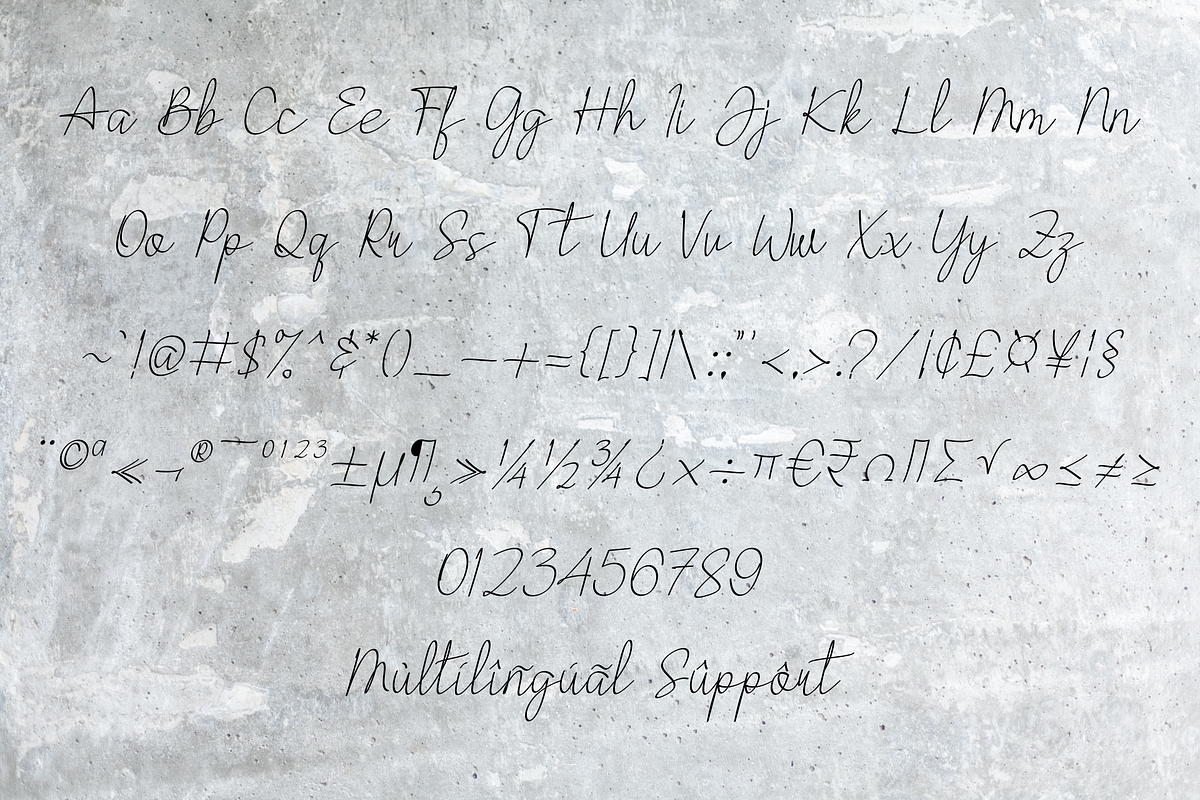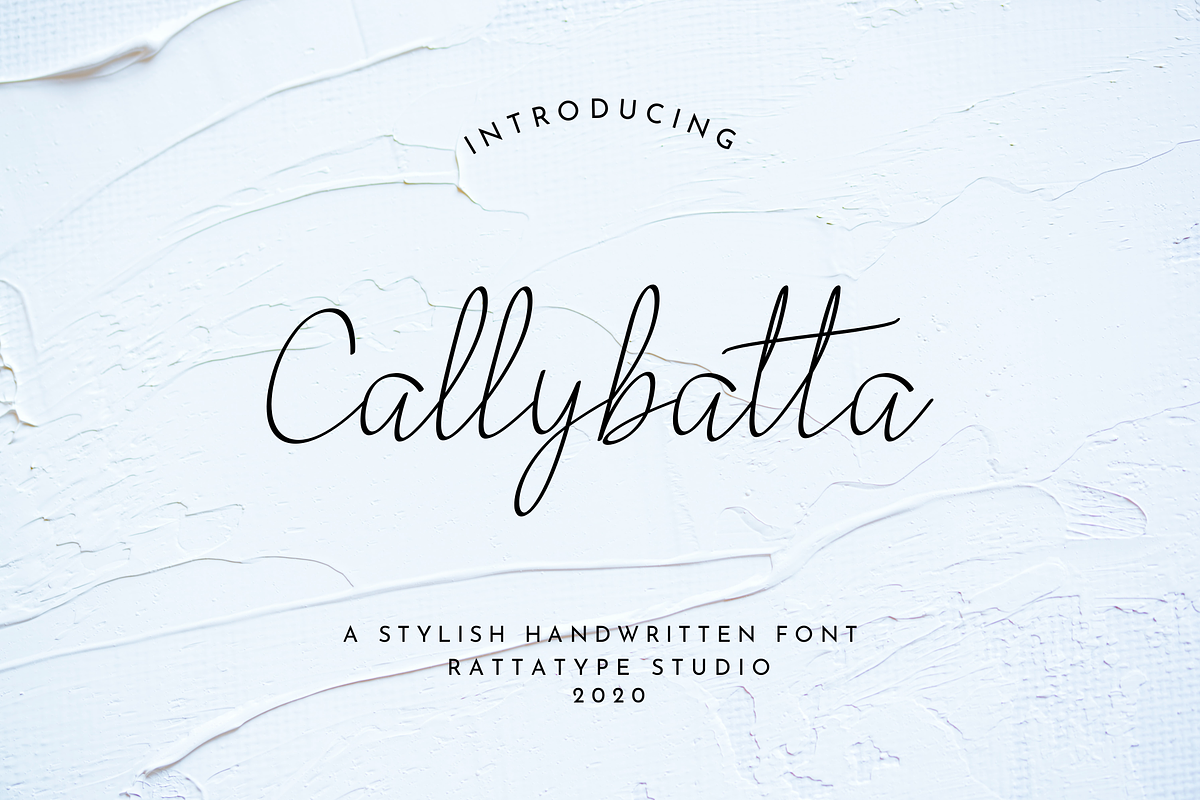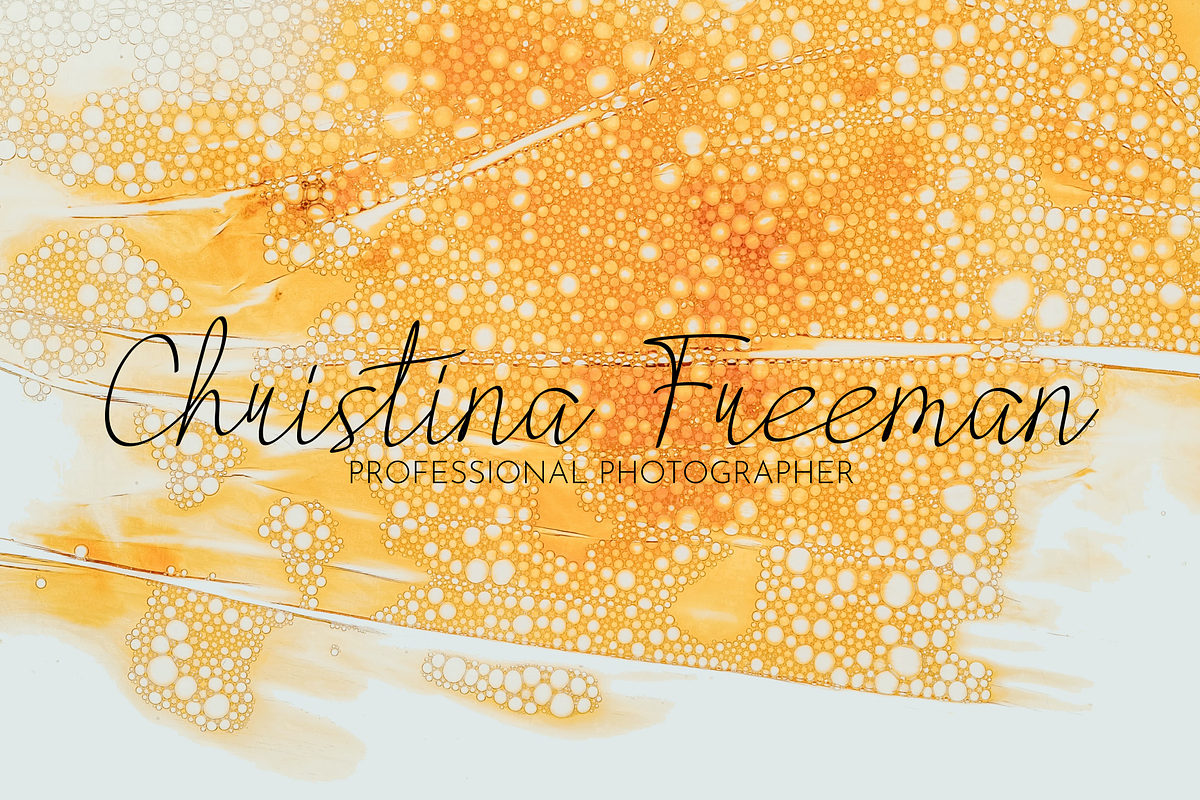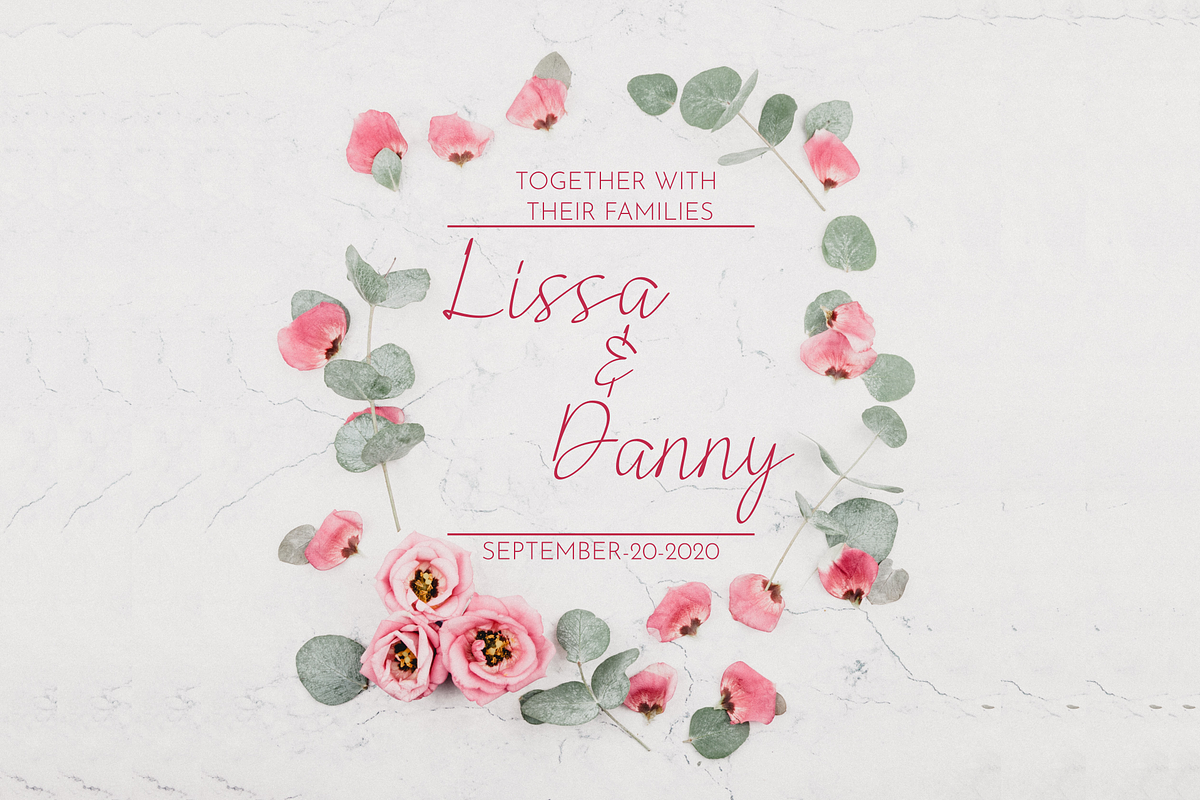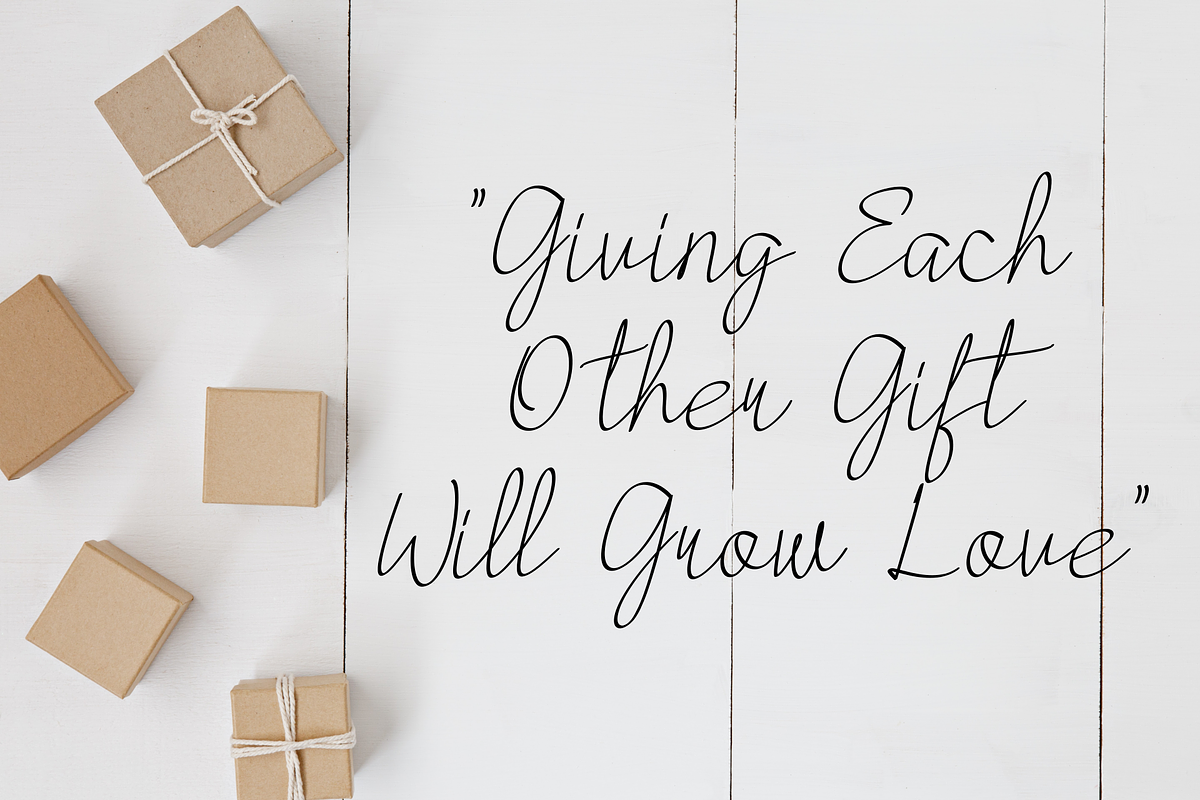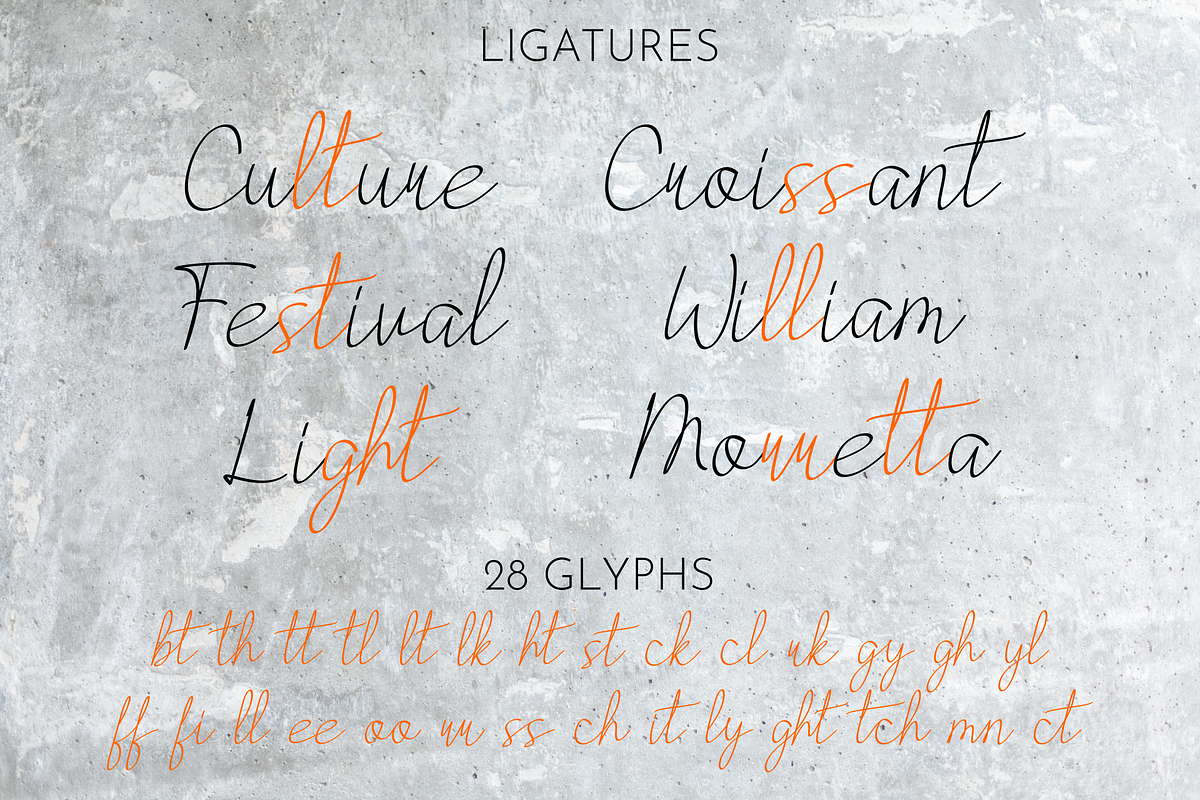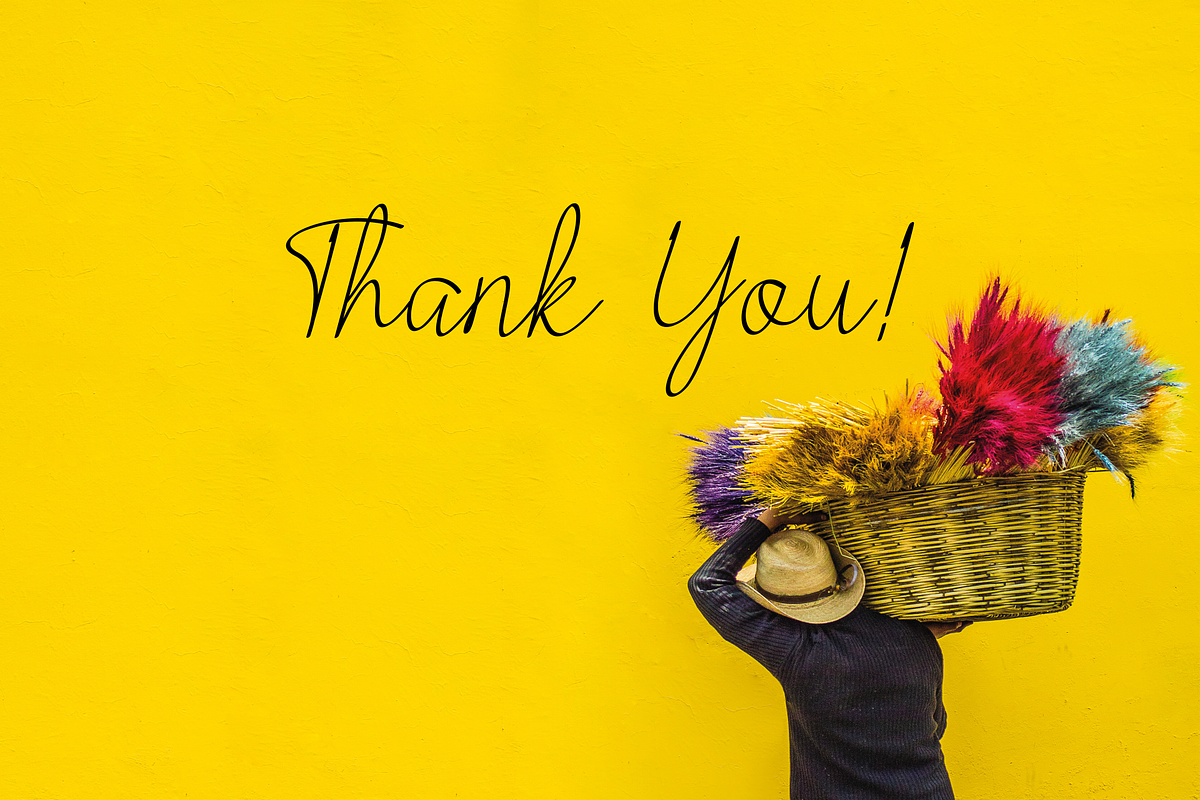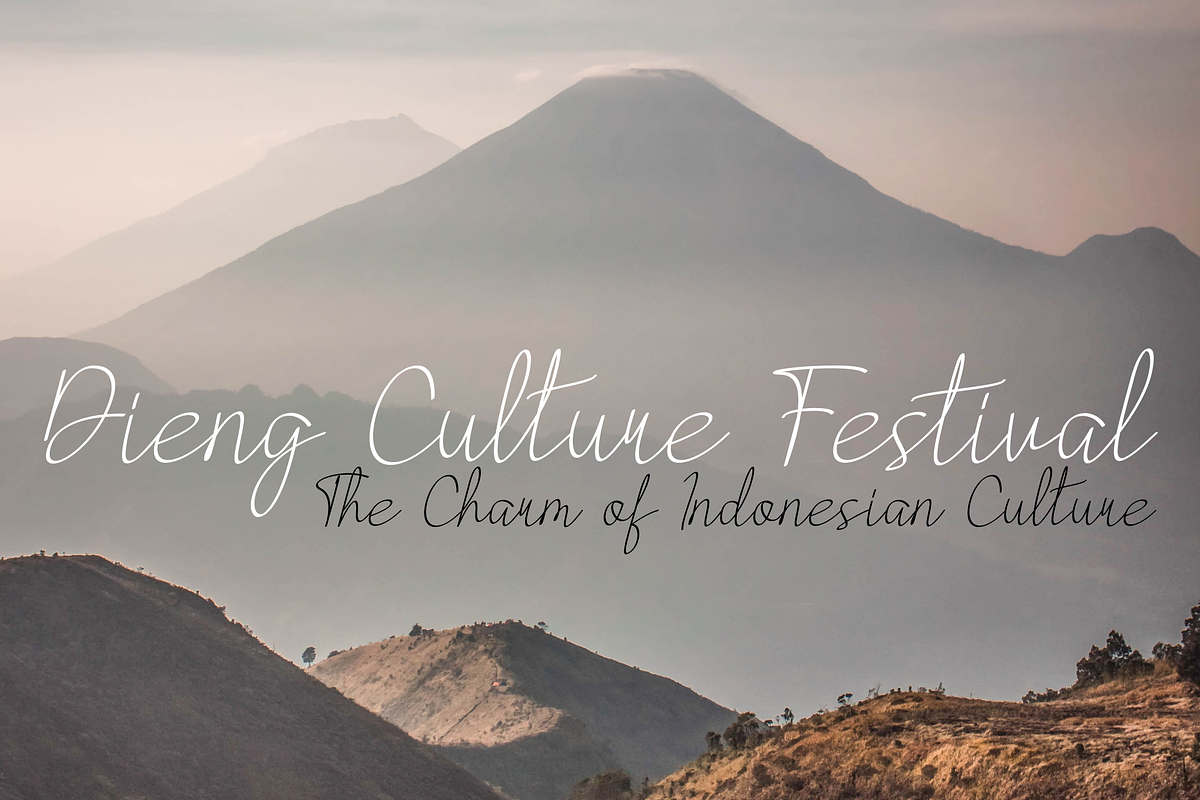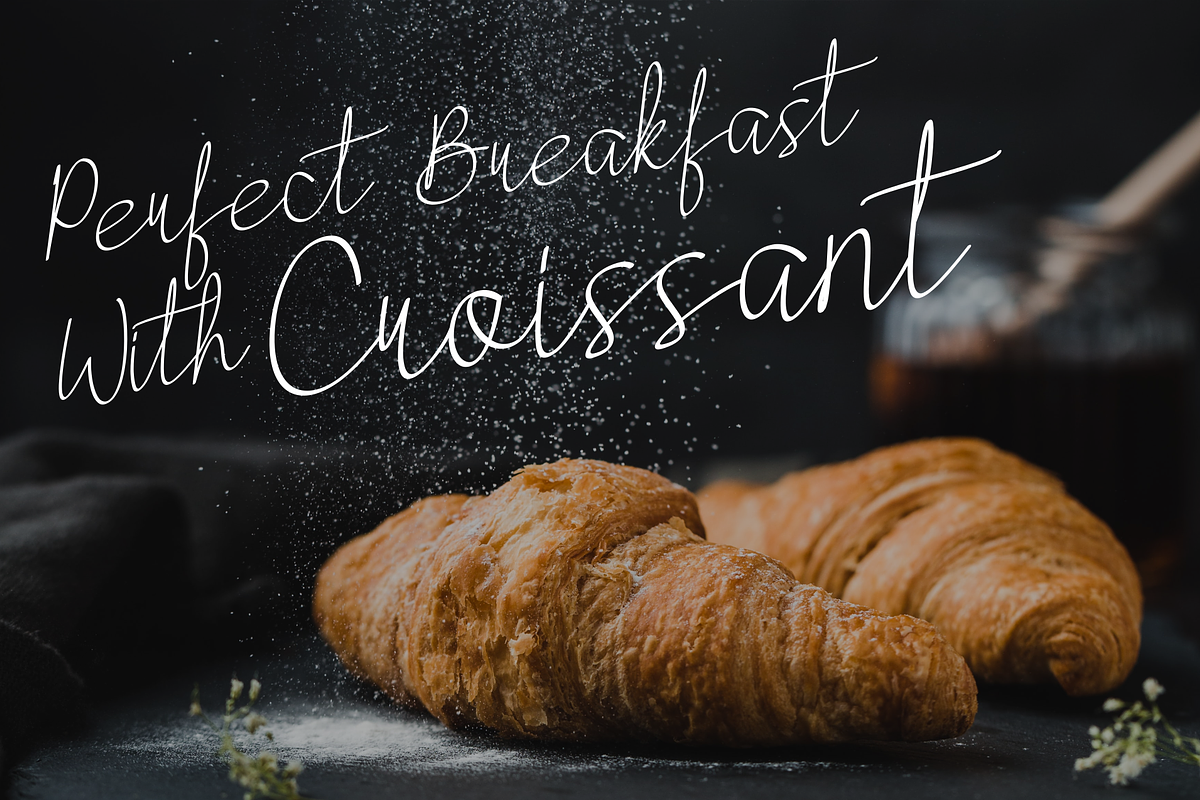
Callybatta Handwritten Font
Meet Callybatta, a charming handwritten font designed to bring warmth, personality, and a natural flow to your creative work. Inspired by casual calligraphy and authentic hand-drawn strokes, Callybatta feels personal and expressive—perfect for designs that need a human touch without losing clarity and readability.
This font features smooth curves, balanced letterforms, and an organic rhythm that mimics real handwriting. Each character is crafted to feel natural and consistent, making Callybatta easy to use across both digital and print projects. Its relaxed style works beautifully for modern branding while still feeling timeless and approachable.
Callybatta is ideal for logos, brand identities, social media graphics, packaging, quotes, invitations, wedding designs, journals, and lifestyle content. Whether you are designing for a small business, personal brand, or creative product, this handwritten font helps your message feel friendly, sincere, and memorable.
Optimized for versatility, Callybatta pairs effortlessly with clean sans-serif or classic serif fonts, allowing you to create balanced and professional layouts. If you are looking for a handwritten font that feels natural, stylish, and emotionally engaging, Callybatta is a perfect choice to elevate your designs.